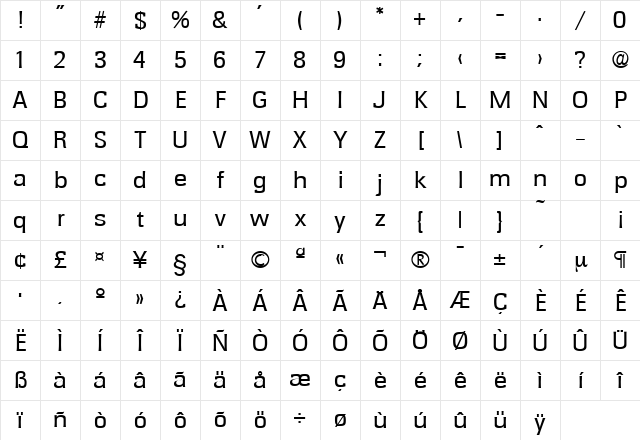
Complete Rochester-Serial DB Regular glyph index. Displaying only characters natively supported by Rochester-Serial DB Regular font.
Rochester-Serial DB is a composed and adaptable typeface that performs quietly and consistently across a wide range of design contexts.